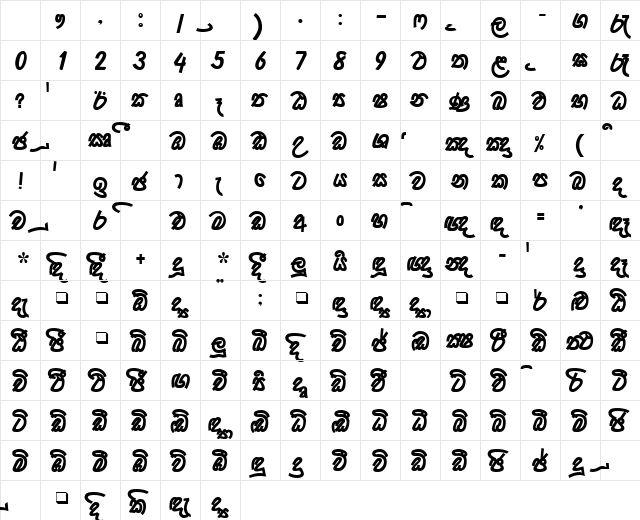
Complete 0KDBOLIDDA bold glyph index. Displaying only characters natively supported by 0KDBOLIDDA bold font.
0KDBOLIDDA is a composed and adaptable typeface that performs quietly and consistently across a wide range of design contexts. Its bold stroke weight gives it real presence on the page.